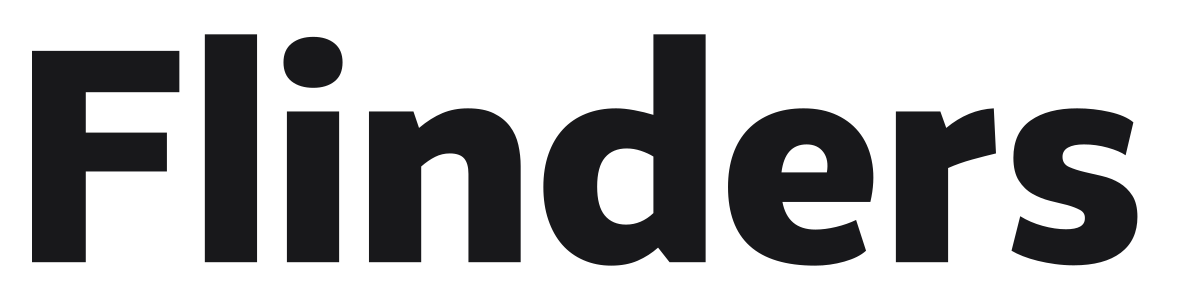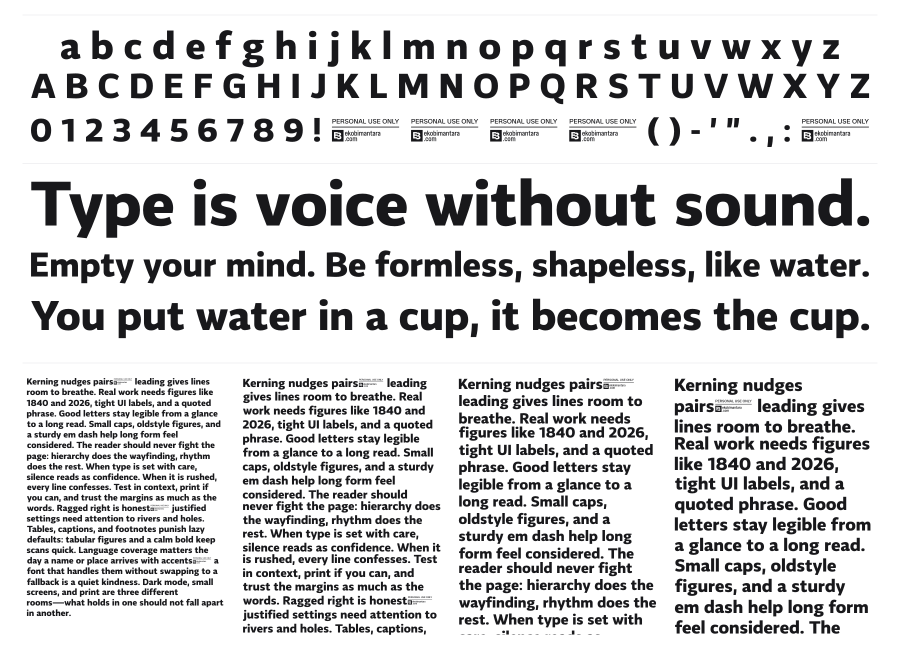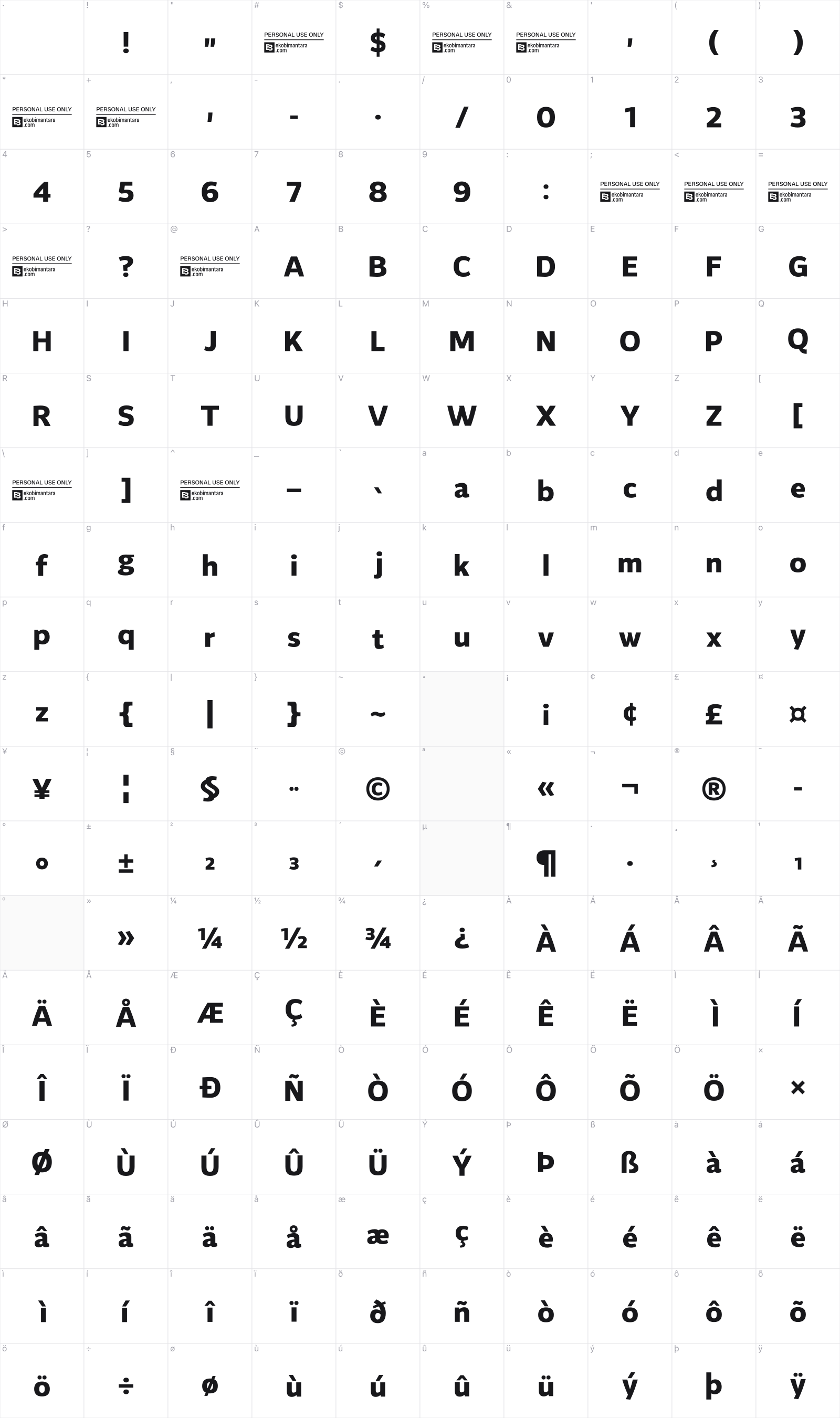
Flinders
by Eko Bimantara
Flinders is a bold geometric sans-serif with wide proportions, large x-height, and softly rounded terminals. The near-monoweight strokes and circular bowl construction give it a clean, modern confidence without feeling cold. It carries weight well in headlines, logos, and anywhere a design needs a solid, no-nonsense voice.